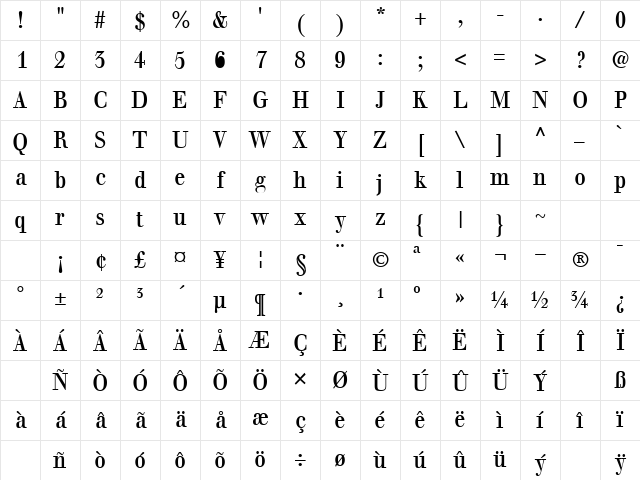
WalterCond Normal
Design Context for WalterCond
WalterCond is a composed and adaptable typeface that performs quietly and consistently across a wide range of design contexts. Its narrow stance lets it pack a punch even in space-constrained designs.